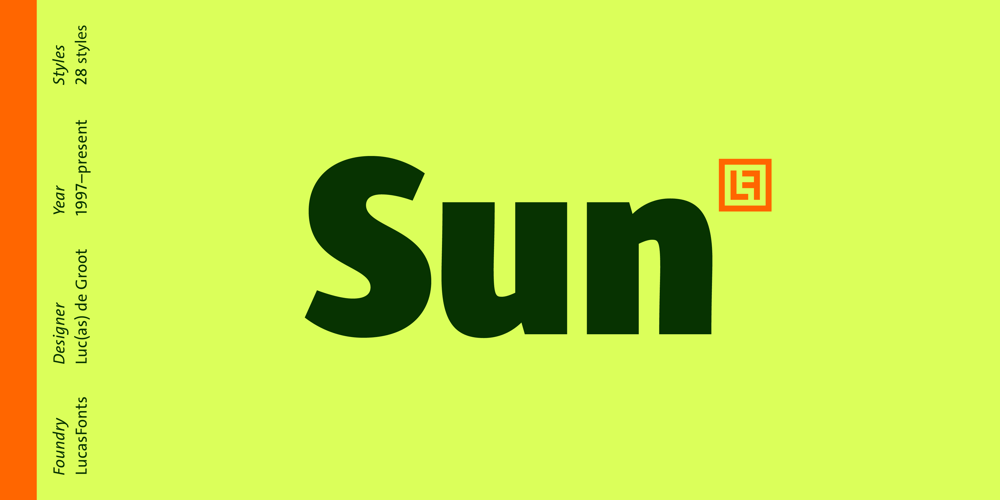
Sun font
Sun Font Family was designed by Luc(as) de Groot and published by LucasFonts. Sun contains 28 styles and family package options. Sun is a family of compact typefaces closer to old industrial-style American newspaper headlines than to Luc(as)’s other designs. The fonts also work in text, and have been used for corporate identity and editorial projects for more than two decades now.